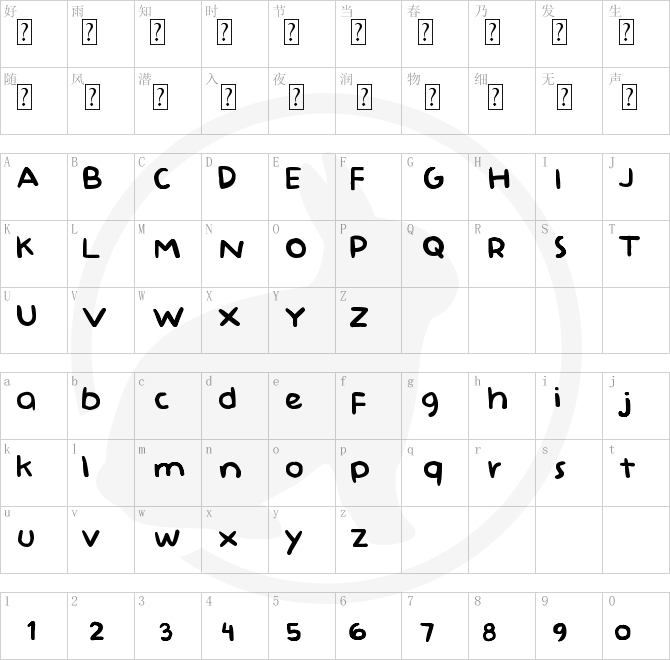
- Font Name:BabyDoll
BabyDoll.ttf is a very beautiful artistic font, BabyDoll.ttf is widely used in the design and printing of various books and pictures,BabyDoll.ttf has a strong visual impact,BabyDoll.ttf is a commonly used font in newspapers, magazines and books, and is used in posters, e-commerce Poster design, store design, logo design, font design and other fields.BabyDoll.